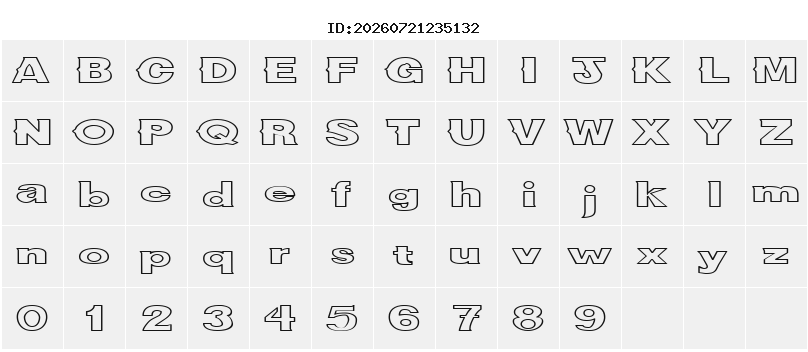
FZ JAZZY 36 HOLLOW EX Preview
• Font Name: FZ JAZZY 36 HOLLOW EX
• Full Font Name: FZ JAZZY 36 HOLLOW EX
• PostScript Name: FZ-JAZZY36HOLLOWEX
About FZ JAZZY 36 HOLLOW EX.ttf
FZ JAZZY 36 HOLLOW EX.ttf is a modern, elegant sans-serif font designed for ultimate readability and visual harmony. Perfect for branding, headlines, web design, and print materials.